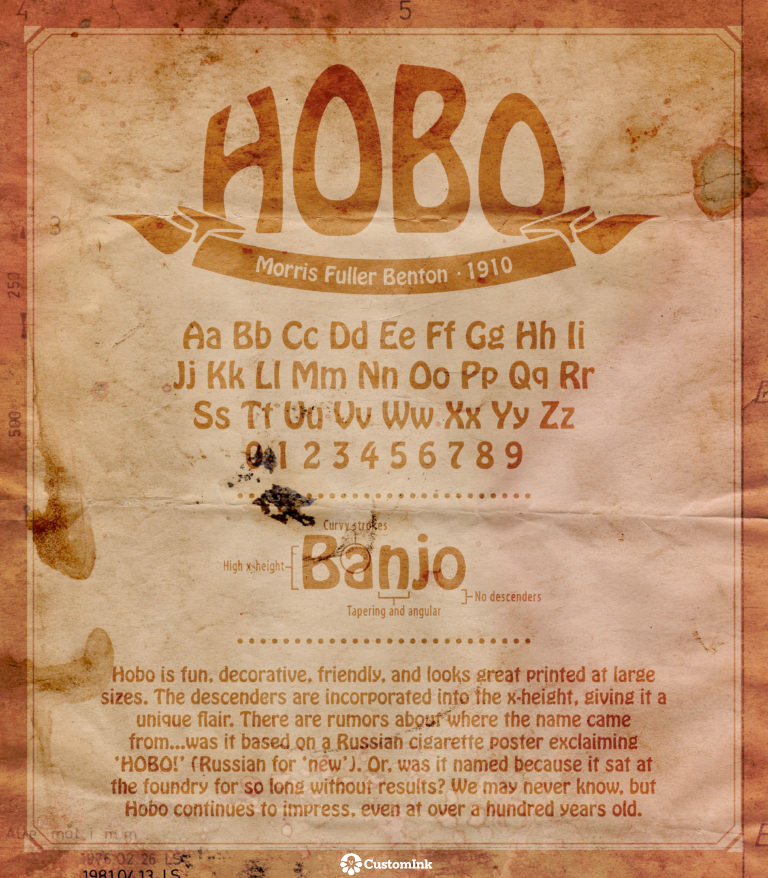
Font of the Week — Hobo
Hobo’s namesake remains a bit of a mystery, but the century old font created by Morris Fuller Benton is a favorite for the way it livens up a design at any size. Why is Hobo so easy to identify? It’s one of a handful of fonts that uses absolutely no straight lines! What’s better than a funky fun loving font? CustomInk proudly offers Hobo in our Design Lab.